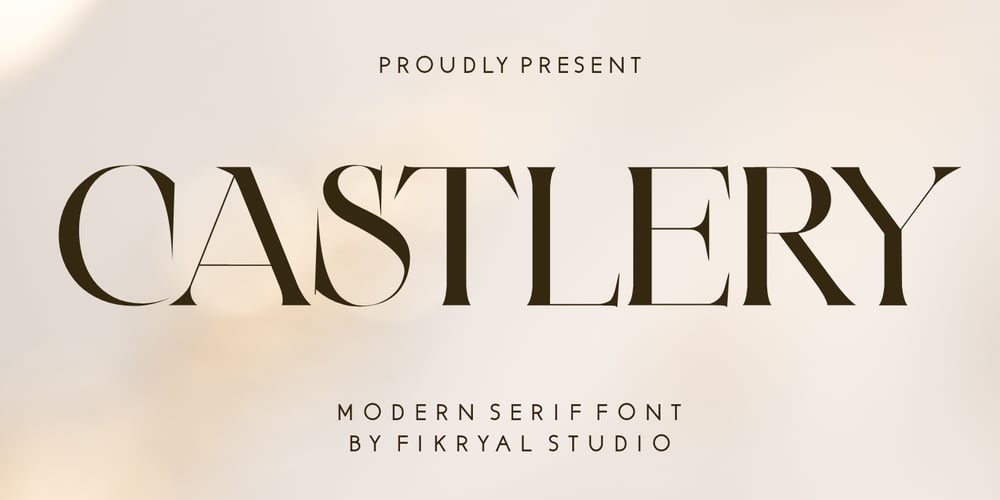
Castlery
Castlery font
Castlery Font Family was designed by Muhammad Fikry and published by Fikryal. Castlery contains 1 styles and family package options. Castlery Modern Serif Font is a modern and elegant font designed with great care to provide a professional look for documents and graphic designs. This font has smooth and clean lines, while maintaining clear and easy-to-read letter heights.With an elegant serif style, this font is perfect for use in logos, books, magazines, posters, and other marketing materials that require a classy look. Castlery Modern Serif Font is available with uppercase letters, making it easy to customize to meet your design needs.With the advantages of a very modern and elegant design, as well as the ability to give a professional impression to your designs, Castlery Modern Serif Font is the perfect choice for graphic designers looking for cool and high-quality fonts.Features:Multilingual SupportThank you